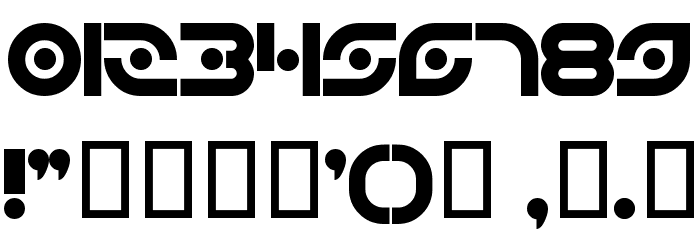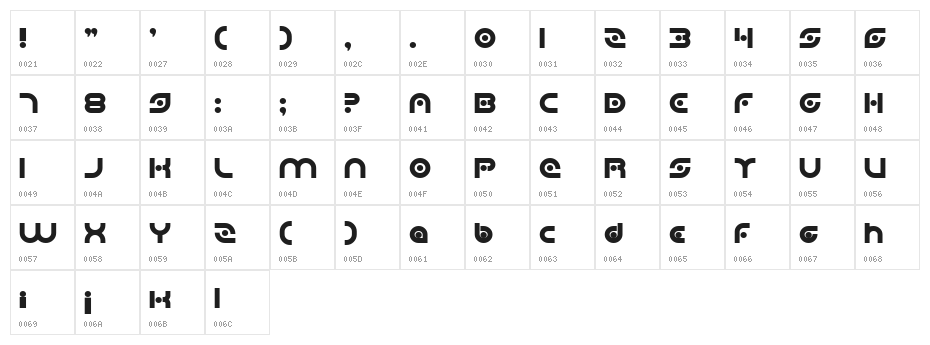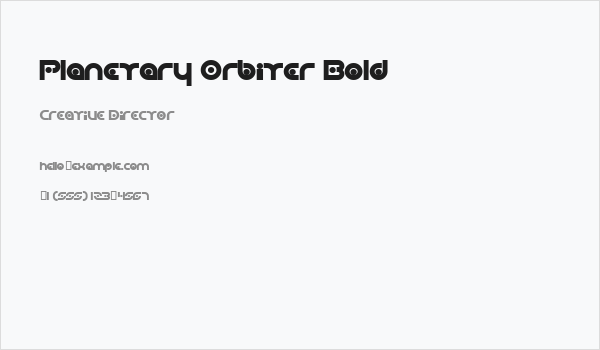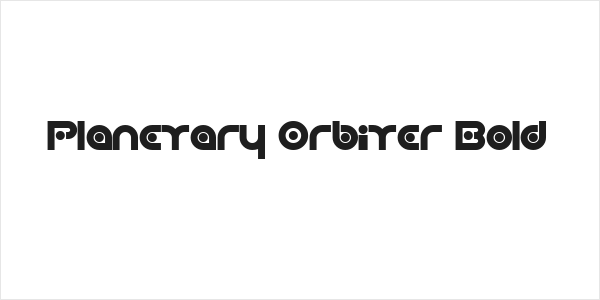
Planetary Orbiter Bold Font
Planetary Orbiter Bold Description
This font features a futuristic and geometric design, characterized by its bold and rounded letterforms. The characters are constructed with a consistent stroke width, giving it a uniform appearance. The use of circular and semi-circular shapes within the letters adds a unique and modern touch, making it stand out as a display typeface. The uppercase and lowercase letters maintain a cohesive style, with the lowercase mirroring the uppercase in form and structure. The numerals and special characters follow the same design principles, ensuring a harmonious look across all glyphs.